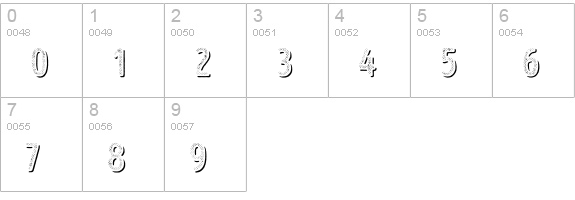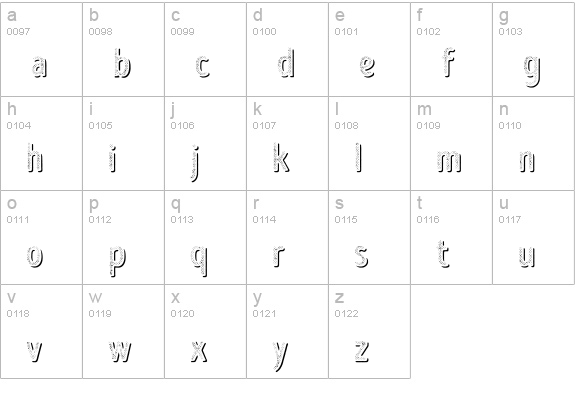
Intro Head B H2 Shade Font Details
Introducing Intro Head B H2 Shade font - a striking and modern typeface that exudes sophistication and style. This unique font features bold, geometric shapes and sharp angles that make it perfect for creating eye-catching headlines and titles. With its sleek design and contemporary appeal, Intro Head B H2 Shade font is sure to make a statement in any design project. The best part? This font is completely free to download at FontsMarket.com. Whether you're working on a branding project, advertising campaign, or any other creative endeavor, Intro Head B H2 Shade font is a versatile choice that will help you stand out from the crowd. Don't miss out on this fantastic opportunity to enhance your designs with this stunning font - download it for free today!